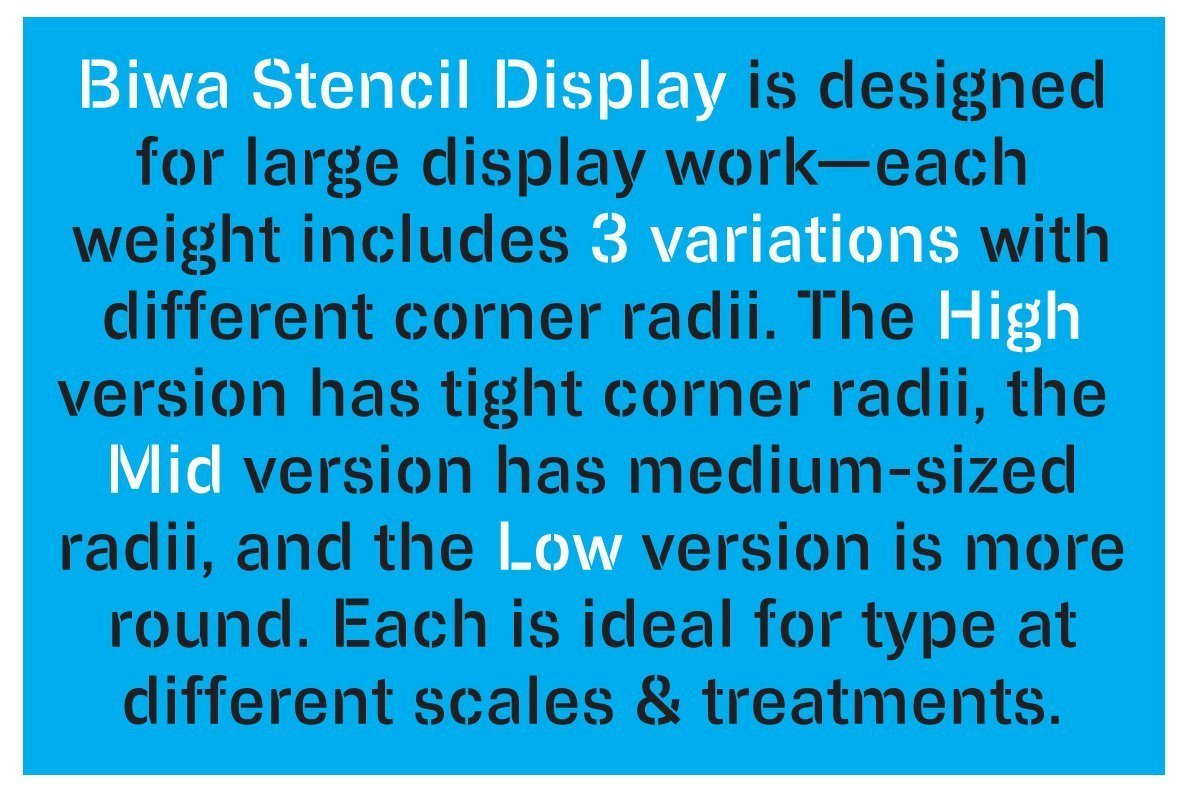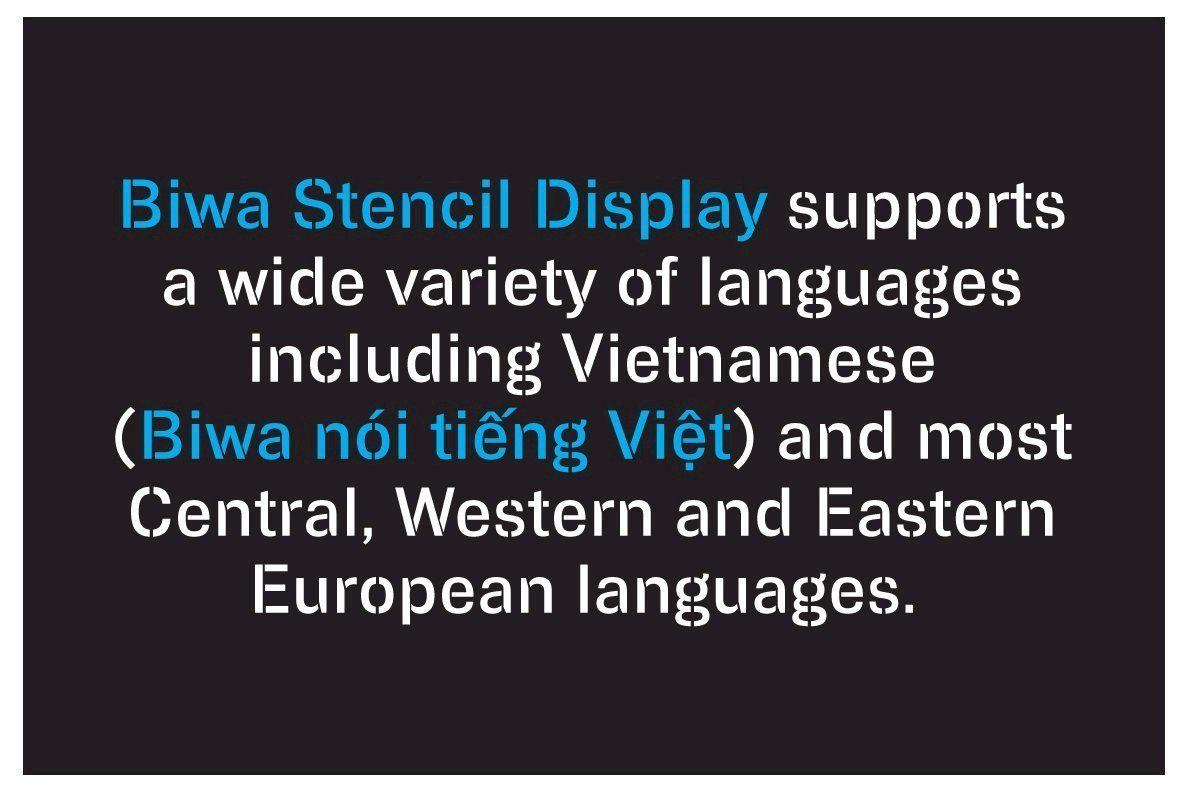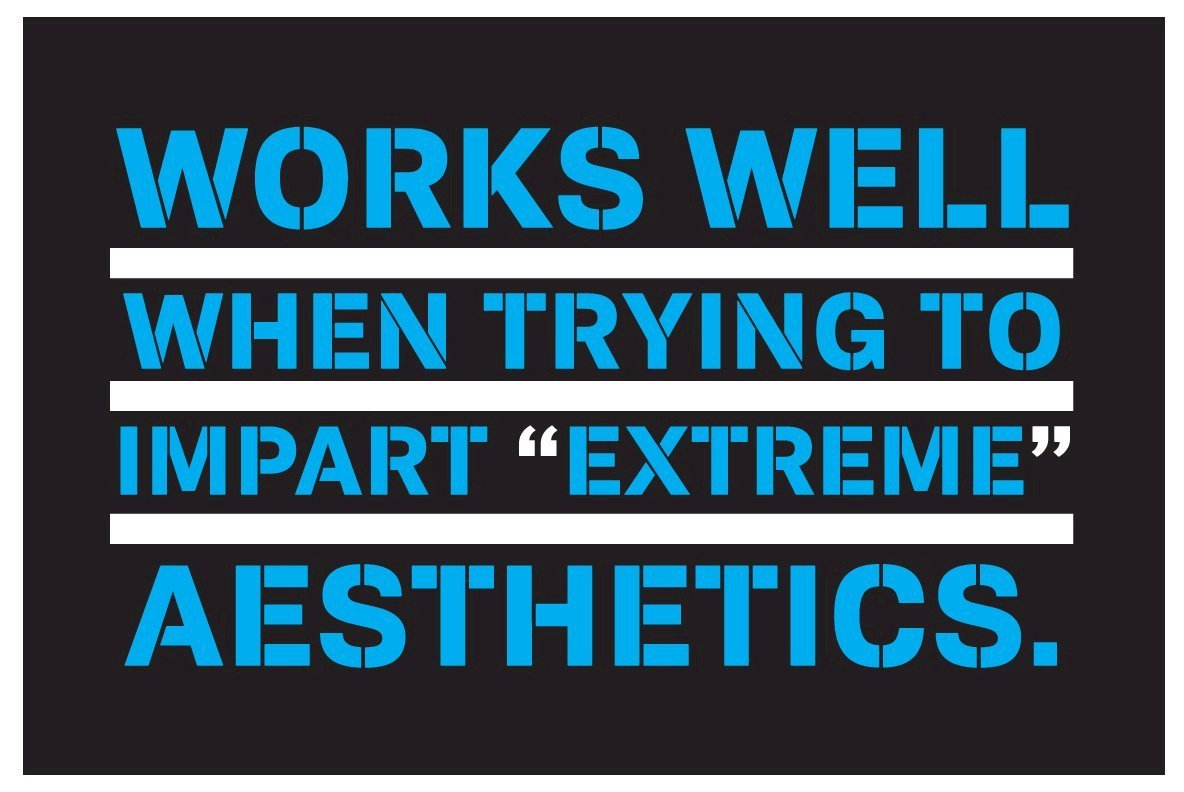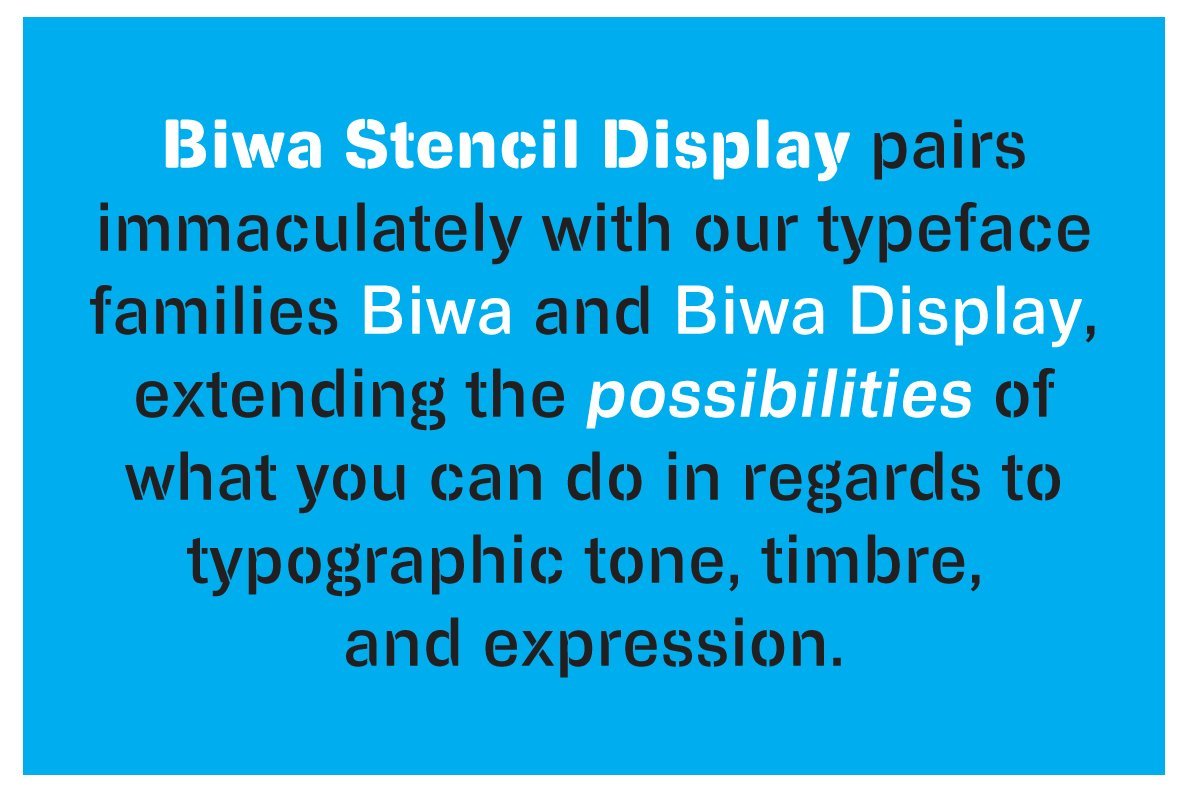
Biwa Stencil Display Font
Biwa Stencil Display is designed for large display work—each weight includes 3 variations with different corner radii. The High version has tight corner radii, the Mid version has medium-sized radii, and the Low version is more round. Each is ideal for type at different scales & treatments.
Biwa Stencil Display supports a wide variety of languages including Vietnamese (Biwa nói tiếng Việt) and most Central, Western and Eastern European languages.
Biwa Stencil Display pairs immaculately with our typeface families Biwa and Biwa Display, extending the possibilities of what you can do in regards to typographic tone, timbre, and expression.
Each weight is designed to be highly readable in print and on-screen. Lovingly spaced and kerned, the Biwa Stencil Display family works equally well for text typesetting and for display design work.
The entire family has been rigorously kerned and spaced for readability on-screen and in print.